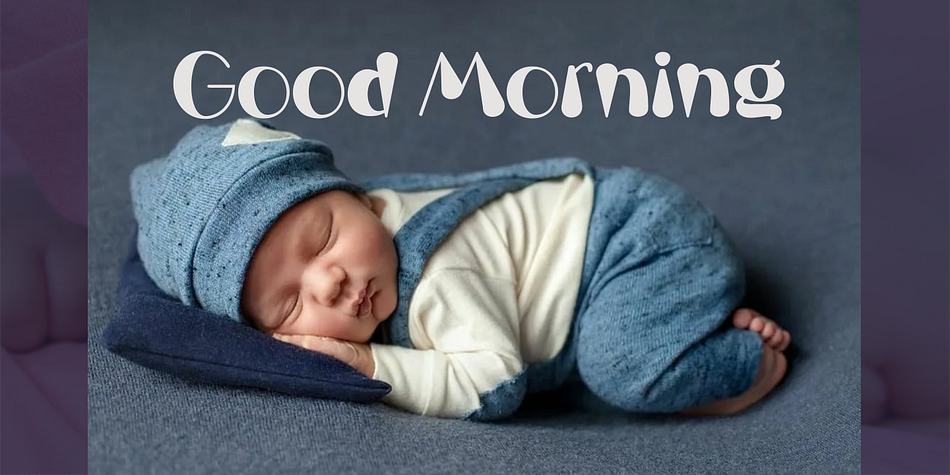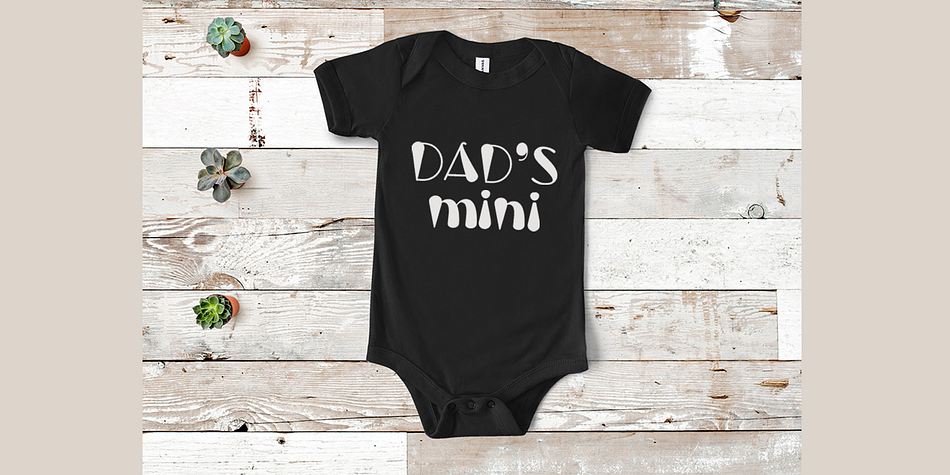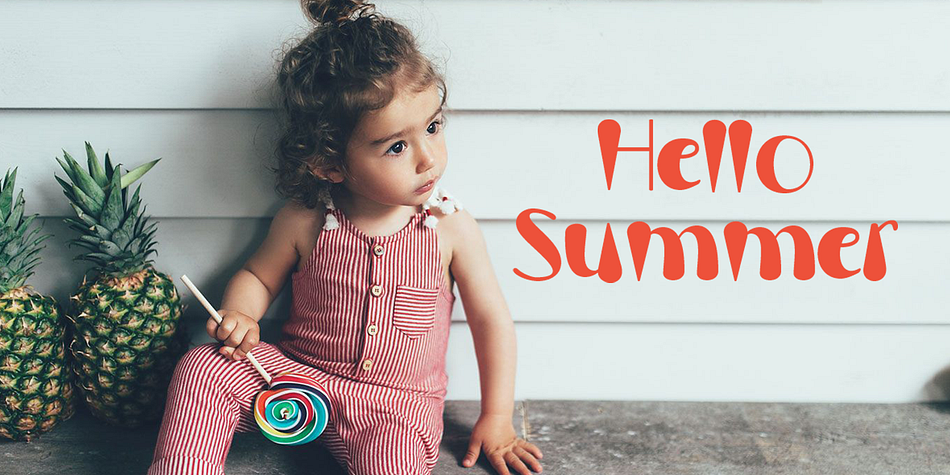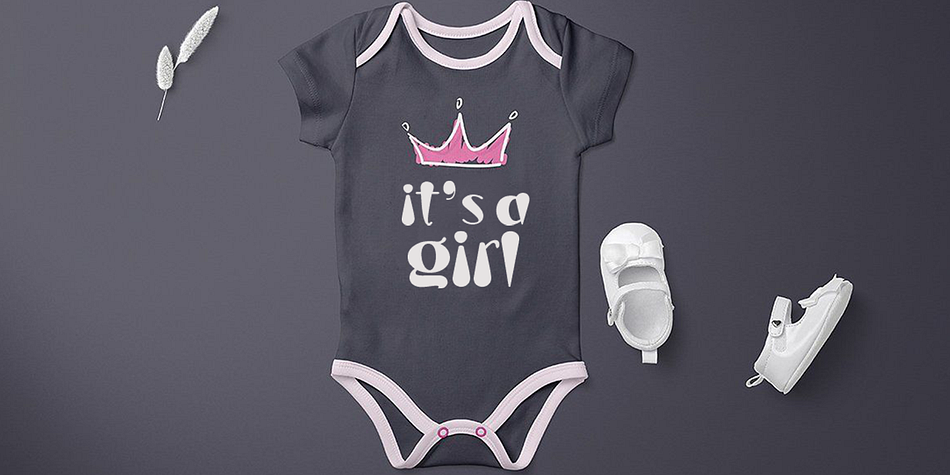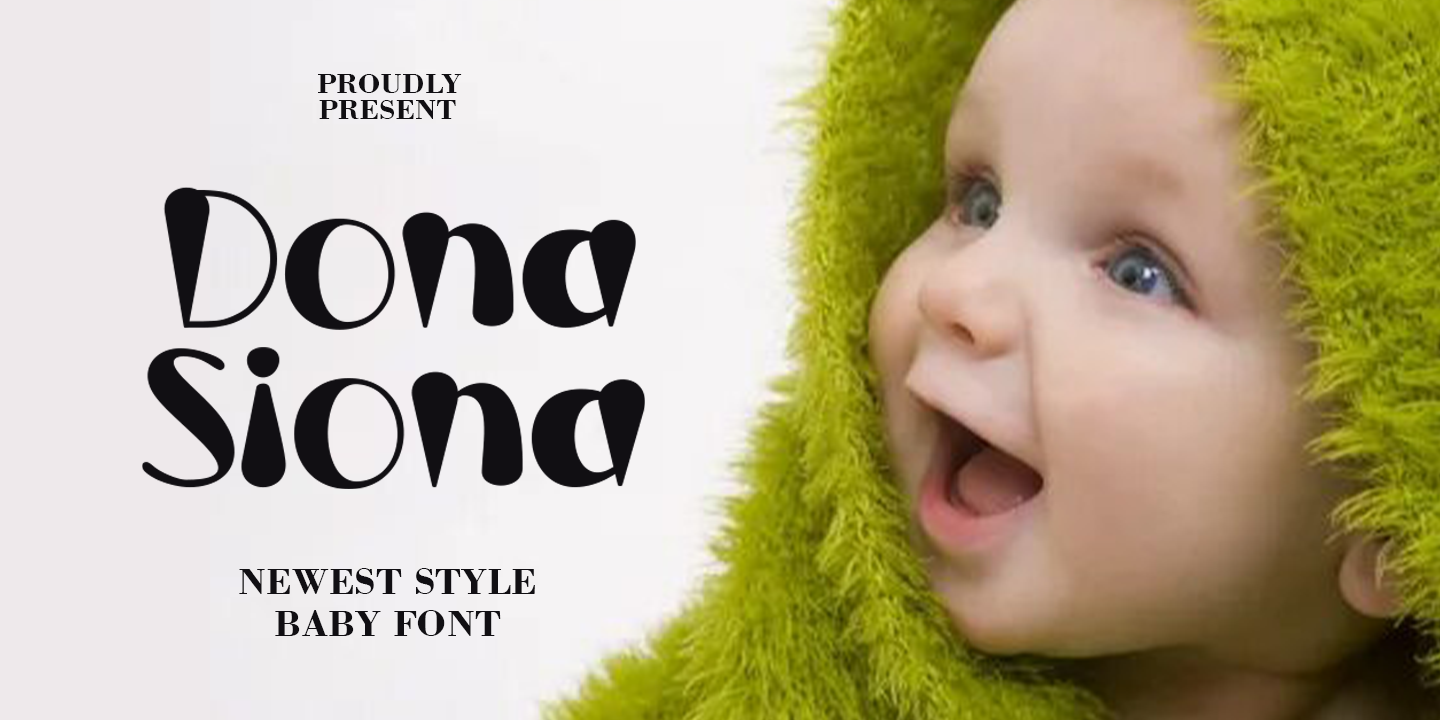
Dona Siona
Dona Siona is a display sans and kids font family published by Gatype.
Dona Siona is a beautiful, light handwritten font with a unique feel and stunning impact. This will add a spark of luxury to any design project you want to create! This font is PUA encoded which means you can access all the amazing glyphs and ligatures with ease!